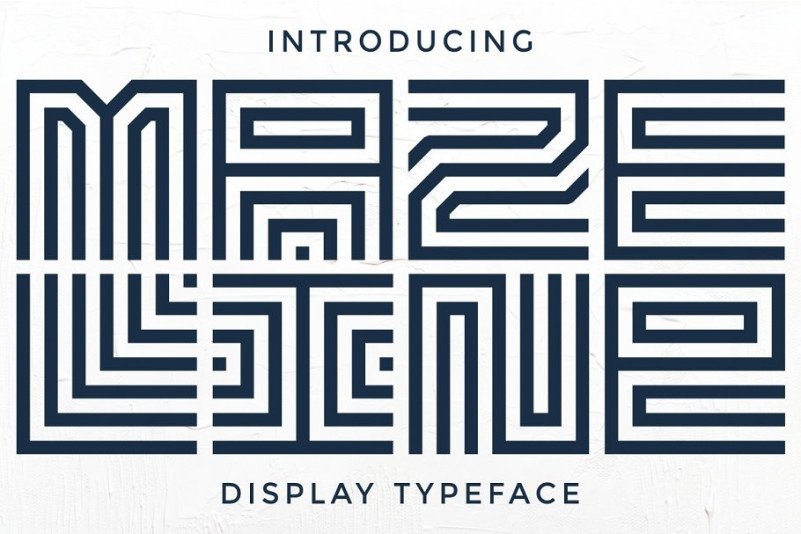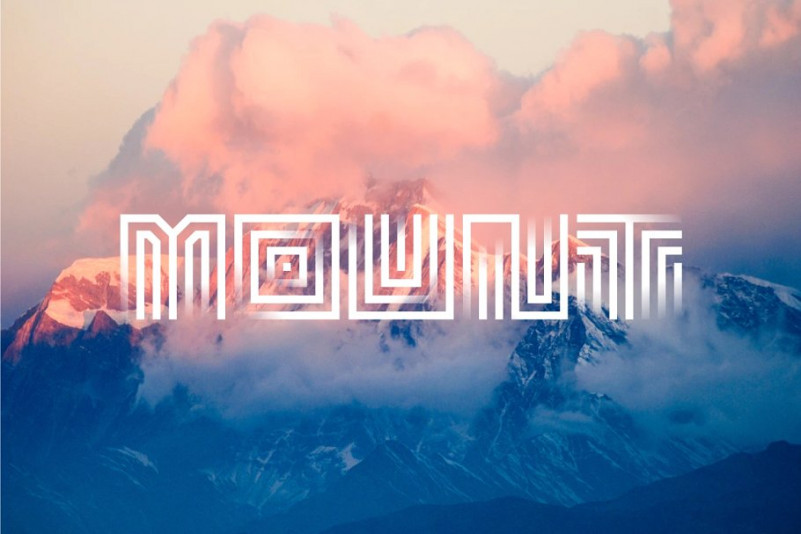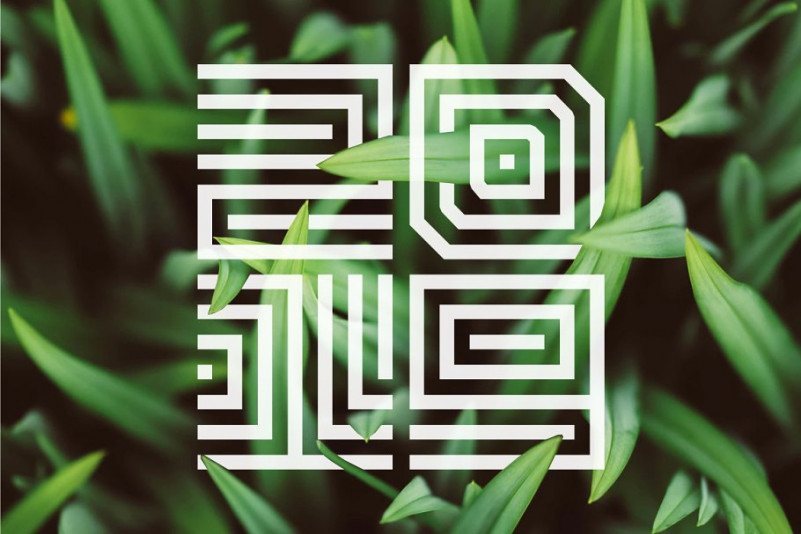
Maze Line Font
Introducing MAZE LINE – A Unique Display Typeface. Maze Line is a font with square shaped from a line arrangement. MAZE LINE is great for any kind of display purpose from logos, Tshirt, apparel, quote, handwritten quotes, product packaging, tittle header, poster, merchandise, social media, labels, branding & greeting cards.